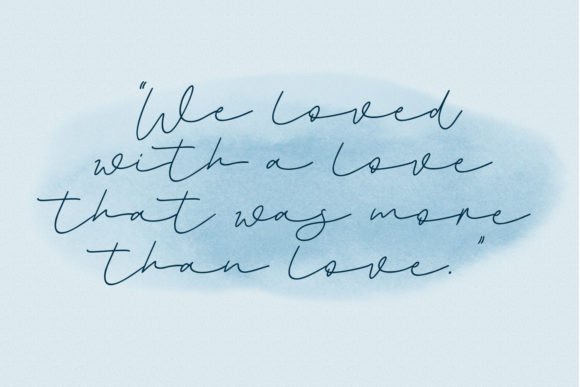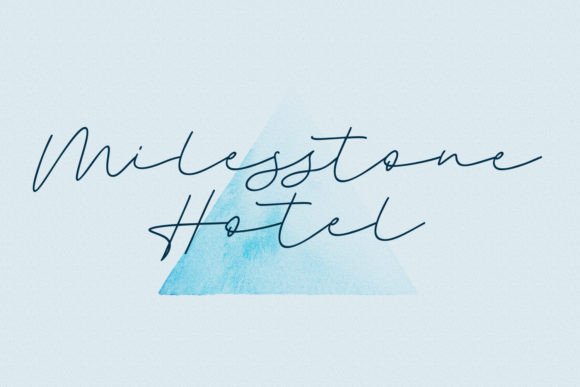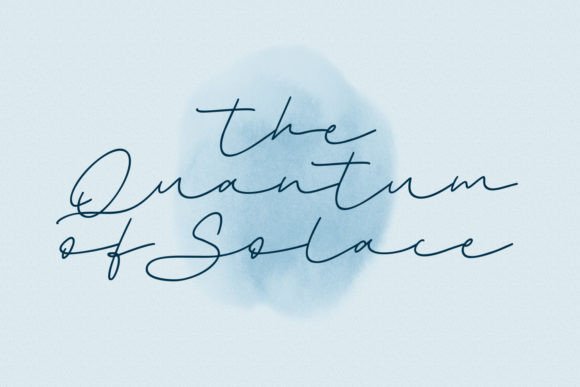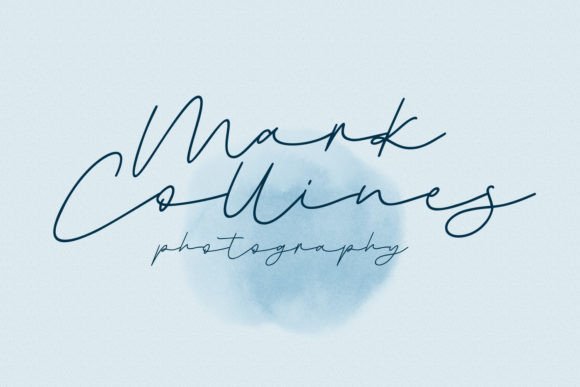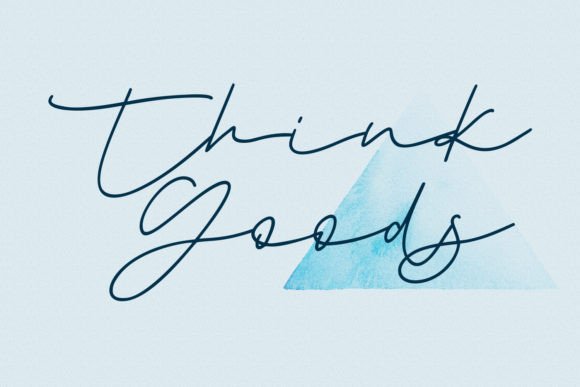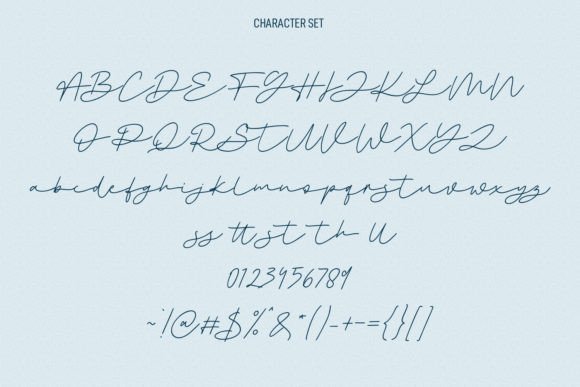
Introduction to Forkys Font
Have you ever found yourself stuck in the midst of a creative project, yearning for the perfect design element to bring it all together? I know I have. That’s exactly what happened to me when I stumbled upon the Forkys Font. Its unique and playful style was the missing piece I needed to take my design to the next level.
As a designer, I can attest to the value of having a versatile and high-quality font like Forkys at your disposal. Its casual and fun script style makes it incredibly fitting to a wide range of creative projects, from social media graphics to wedding invitations. And the best part? It’s completely free to download, making it an invaluable design resource for anyone looking to add a personal touch to their work.
With a transparent background and endless design possibilities, Forkys Font is sure to become your go-to font for any creative project that needs a little extra flair.
Key Features of Forkys Font
- Forkys Font is a high-quality design resource ideal for creative projects, available for free download.
- It offers a unique, modern design with a transparent background, allowing for versatility in design applications.
- Forkys Font is designed to be highly legible, with clear and crisp typography, making it an excellent choice for body text and headings.
- The font includes a wide range of characters, including uppercase and lowercase letters, numbers, and punctuation marks, making it a comprehensive design resource.
Honest Review: Forkys Font
As a designer, I’m always on the lookout for high-quality design resources to enhance my creative projects. Recently, I had the chance to work with Forkys Font, and I’m excited to share my honest review.
What works well: ✨ The font is incredibly versatile, with a wide range of weights and styles that make it perfect for various design projects. The transparent background is a nice touch, allowing for seamless integration with any design element. The font also comes in a free download option, making it accessible to designers of all levels.
What could be improved: ⚠️ The font library is relatively small compared to other popular font options. While the quality is top-notch, I wish there were more options to choose from. Additionally, some users may find the font’s design to be a bit too modern or trendy, which may not appeal to those looking for a more classic look.
Overall impression: Forkys Font is a solid addition to any designer’s toolkit. While it may not be the most extensive font library, its high-quality designs and free download option make it a valuable resource for creative projects. With a bit more development, I believe this font could become a go-to option for designers.
- Perfect for modern and trendy design projects
- Wide range of weights and styles available
To get the most out of Forkys Font, use it with a transparent background to create a clean and minimalist design. You can also experiment with different font sizes and colors to create visual interest.
Forkys Font is suitable for various creative projects, including graphic design, branding, and digital art. It’s also ideal for creating social media graphics, presentations, and other visual content.